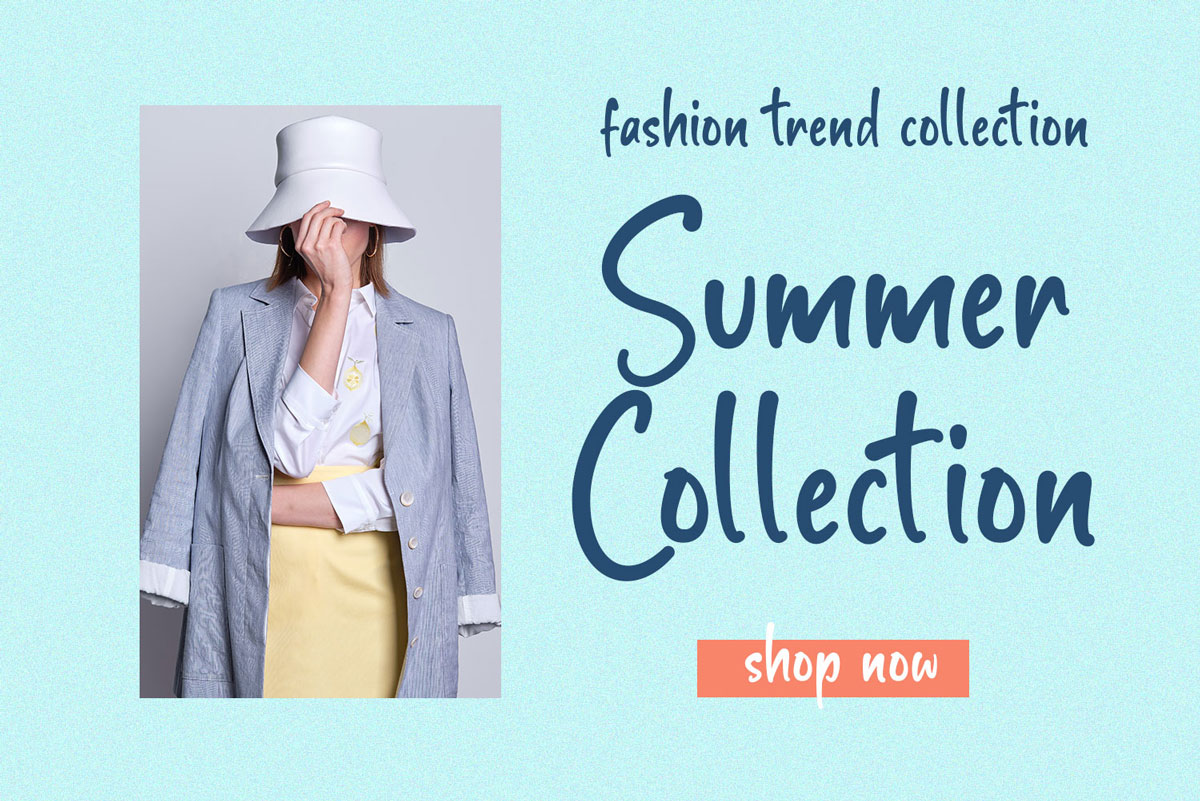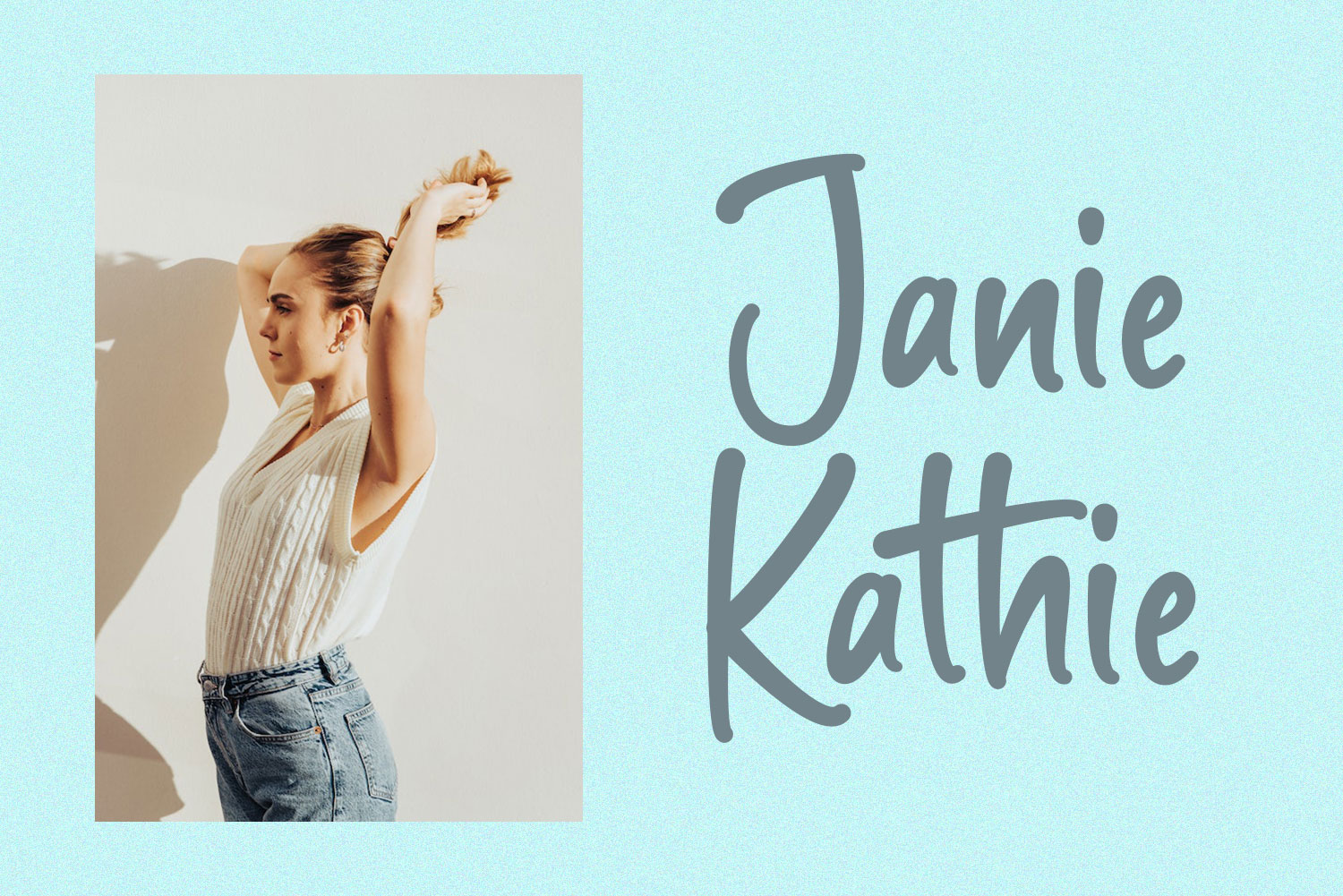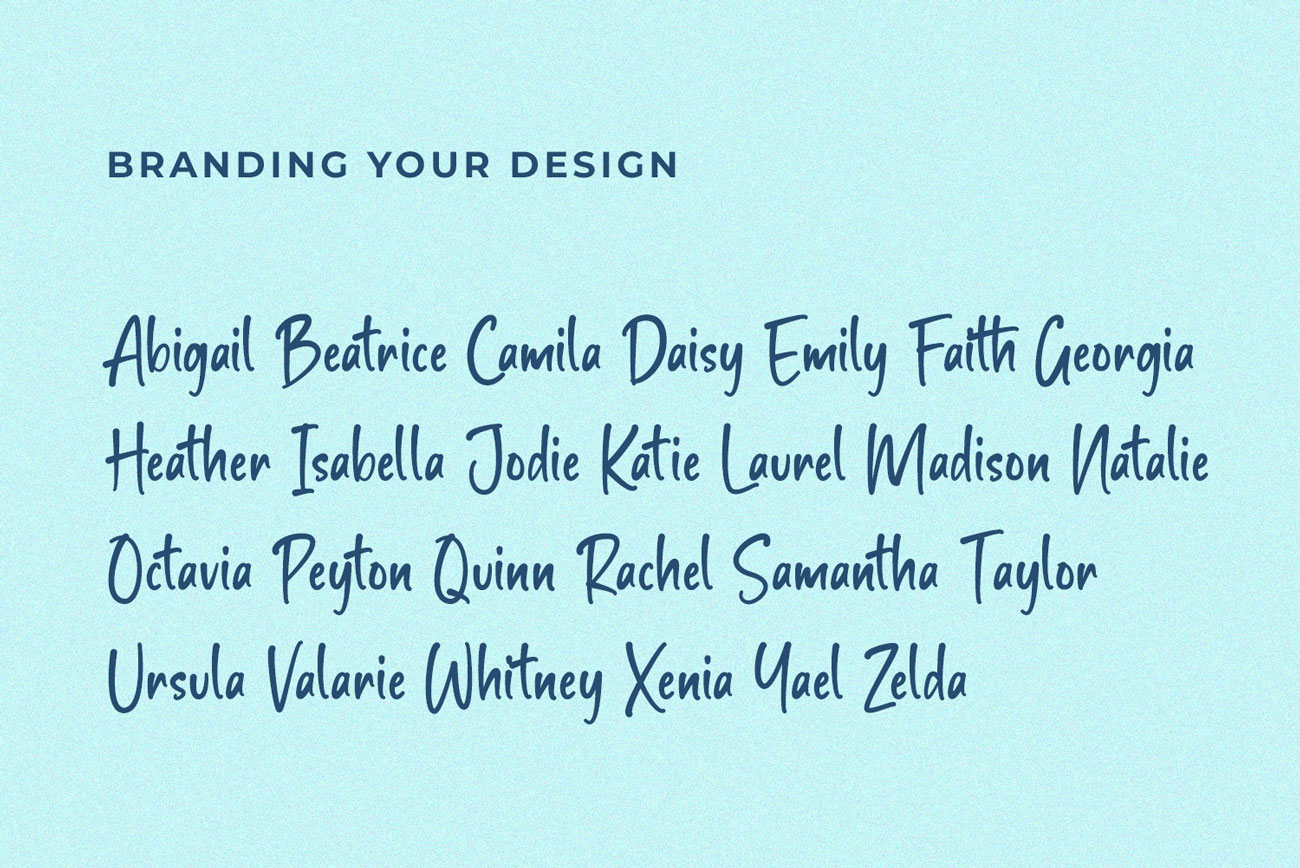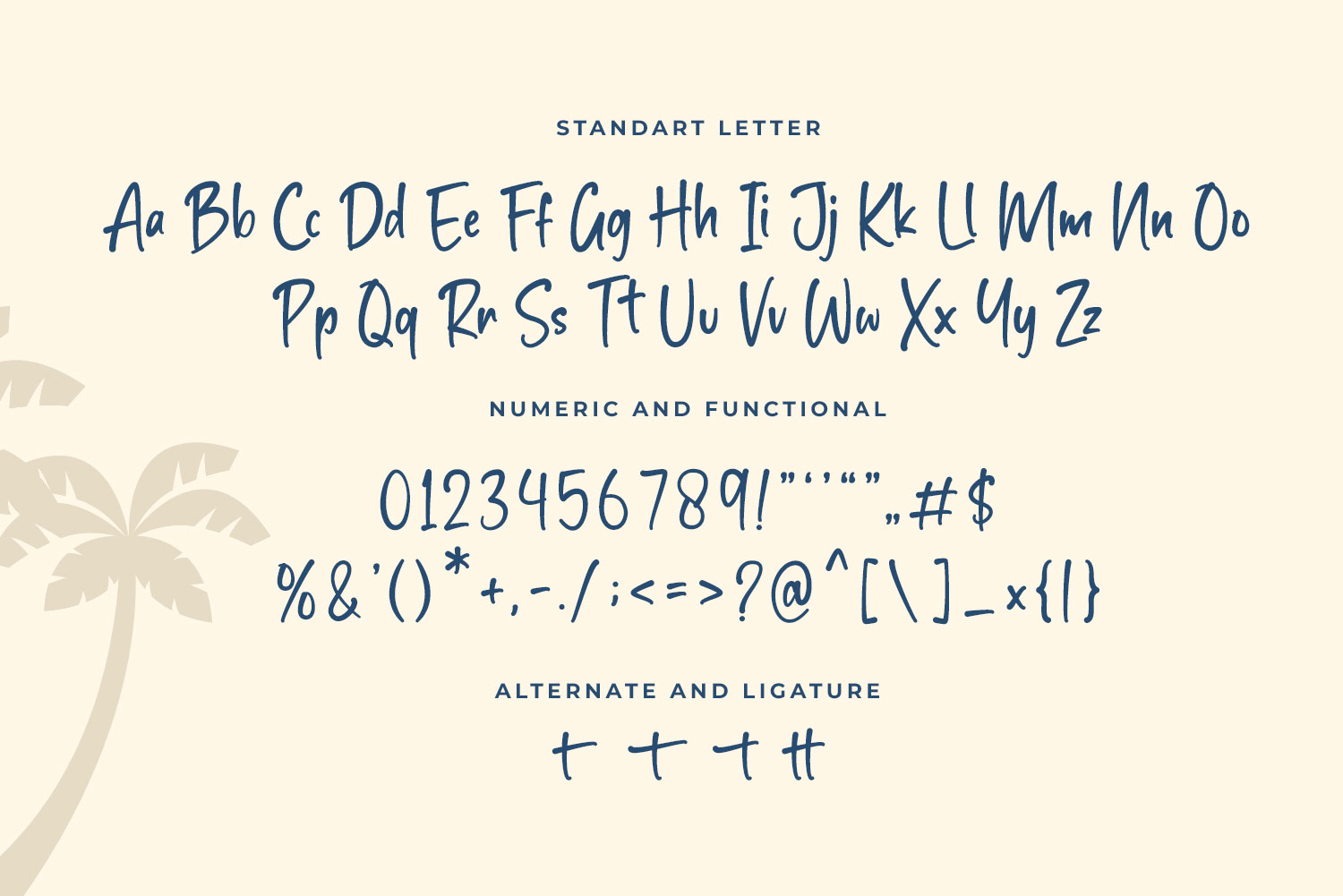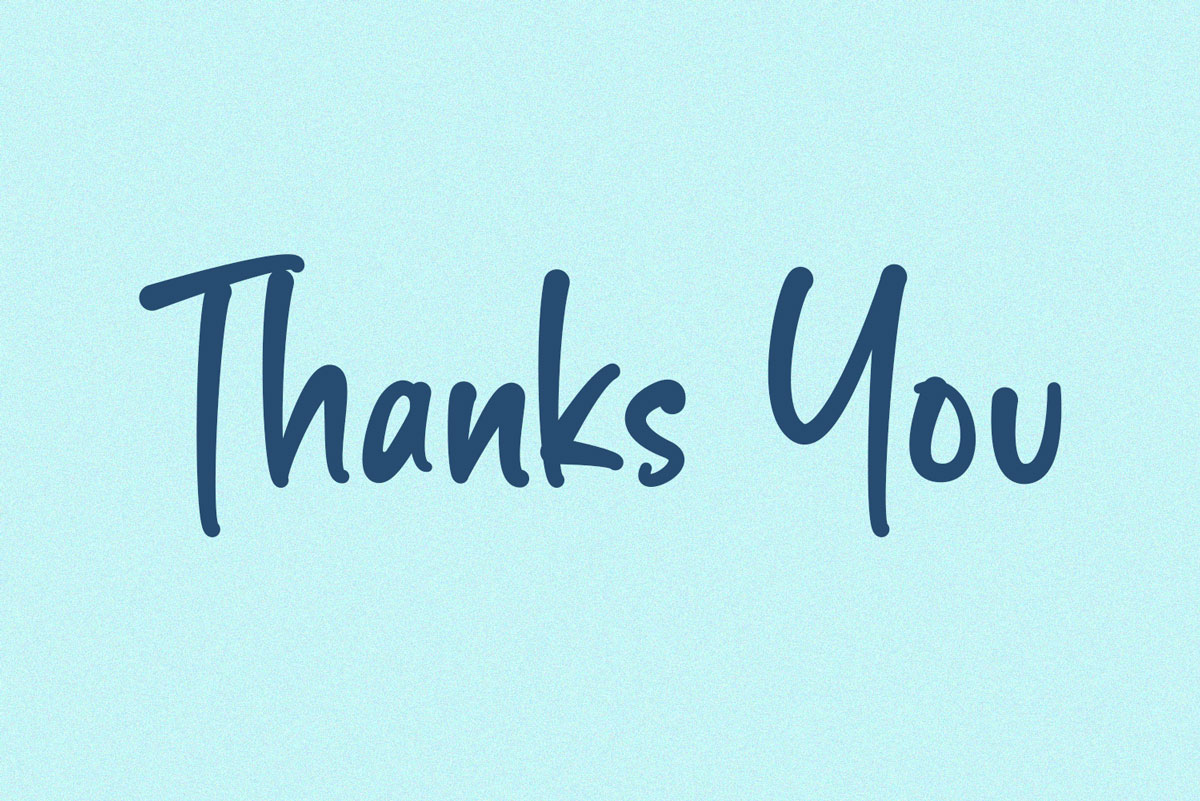
Holiday Delight A Modern Handwritten font
Holiday Delight look modern , stylish and easy to use. This font suitableĀ  for logos, packaging designs, posters, business card, cover, broadcast, quotes, books, etc. Let’s we go, to make you business go to next level with Holiday Delight.
• Standart Letter A-Z
• Alternate